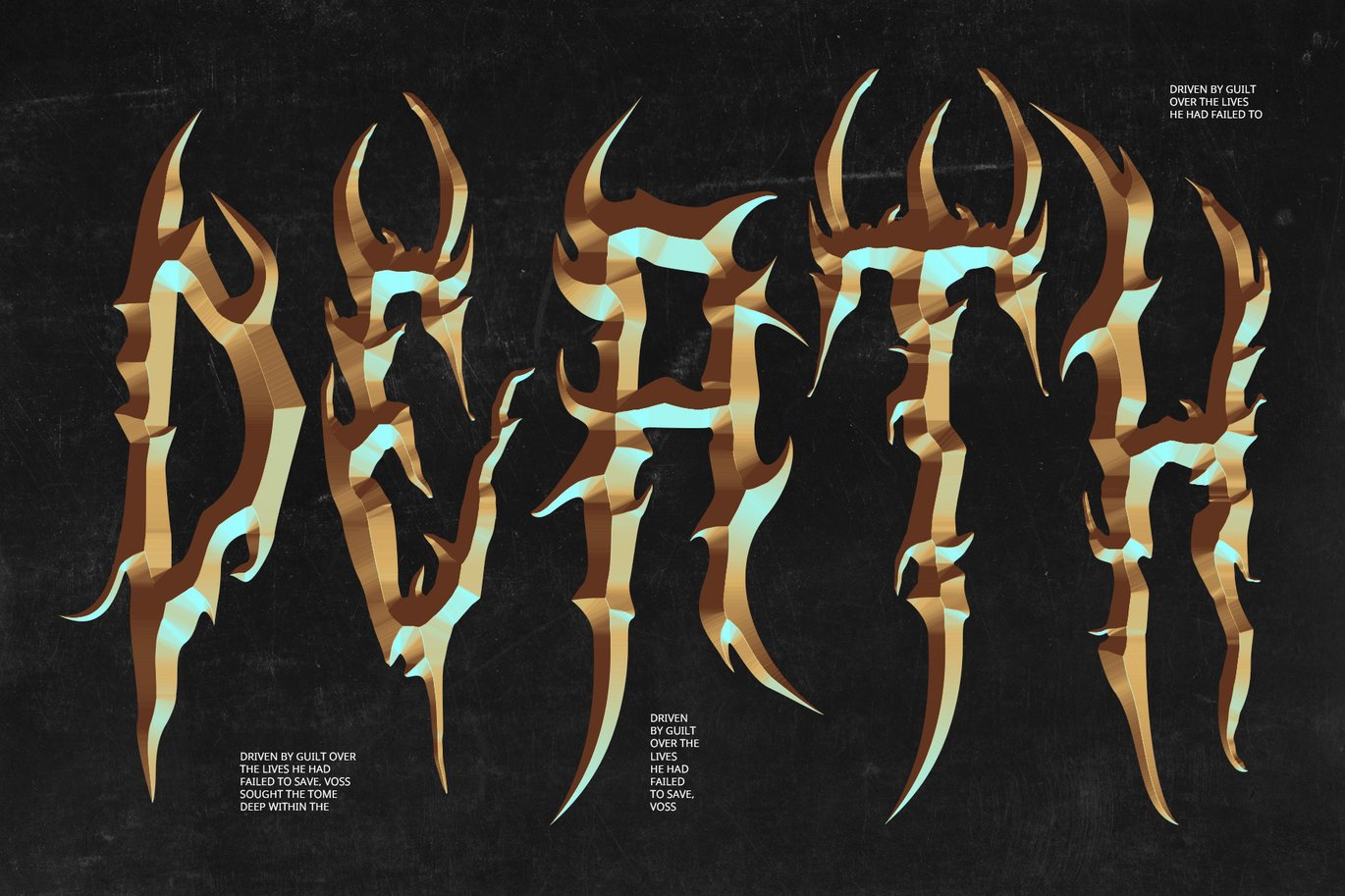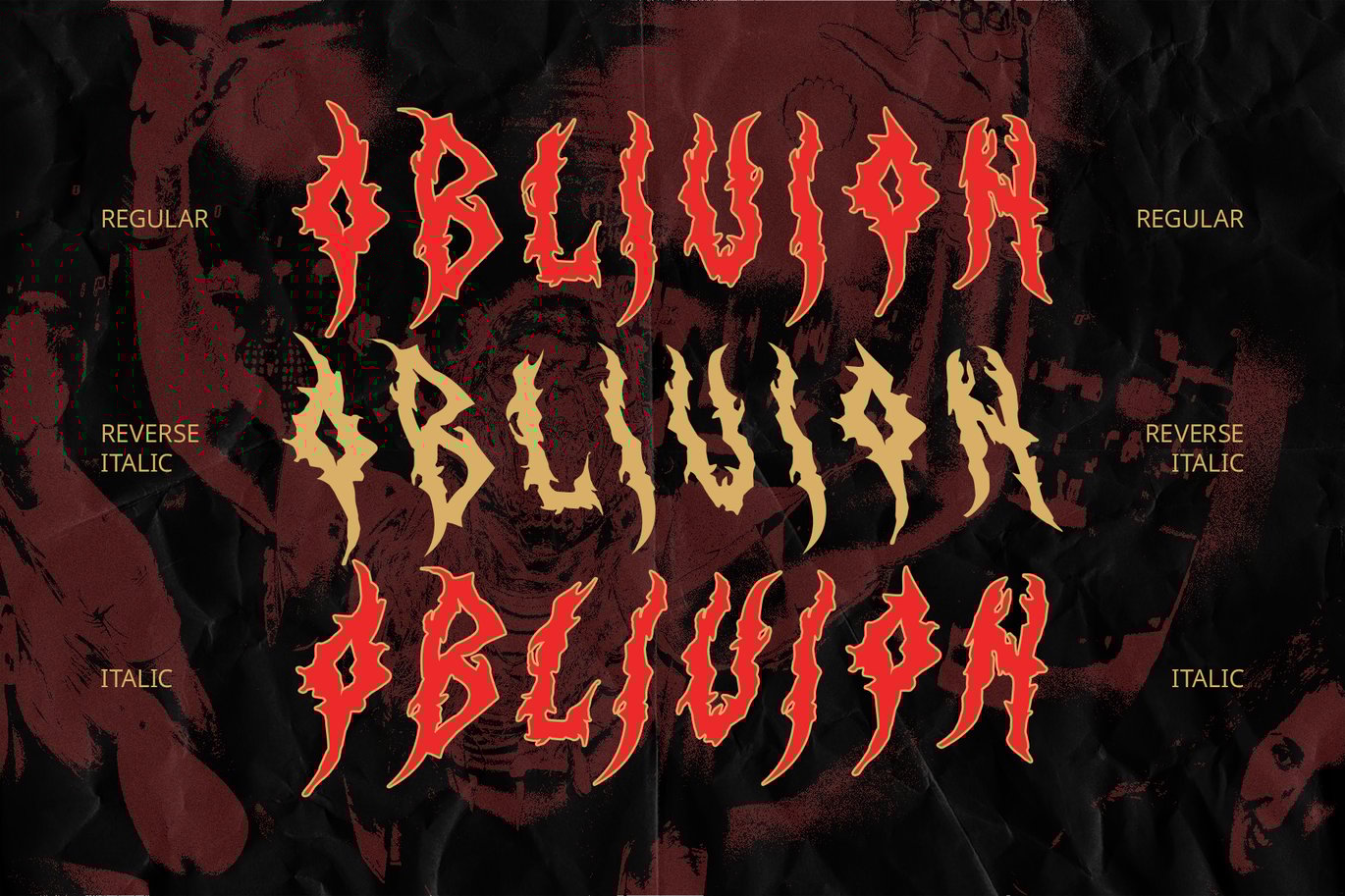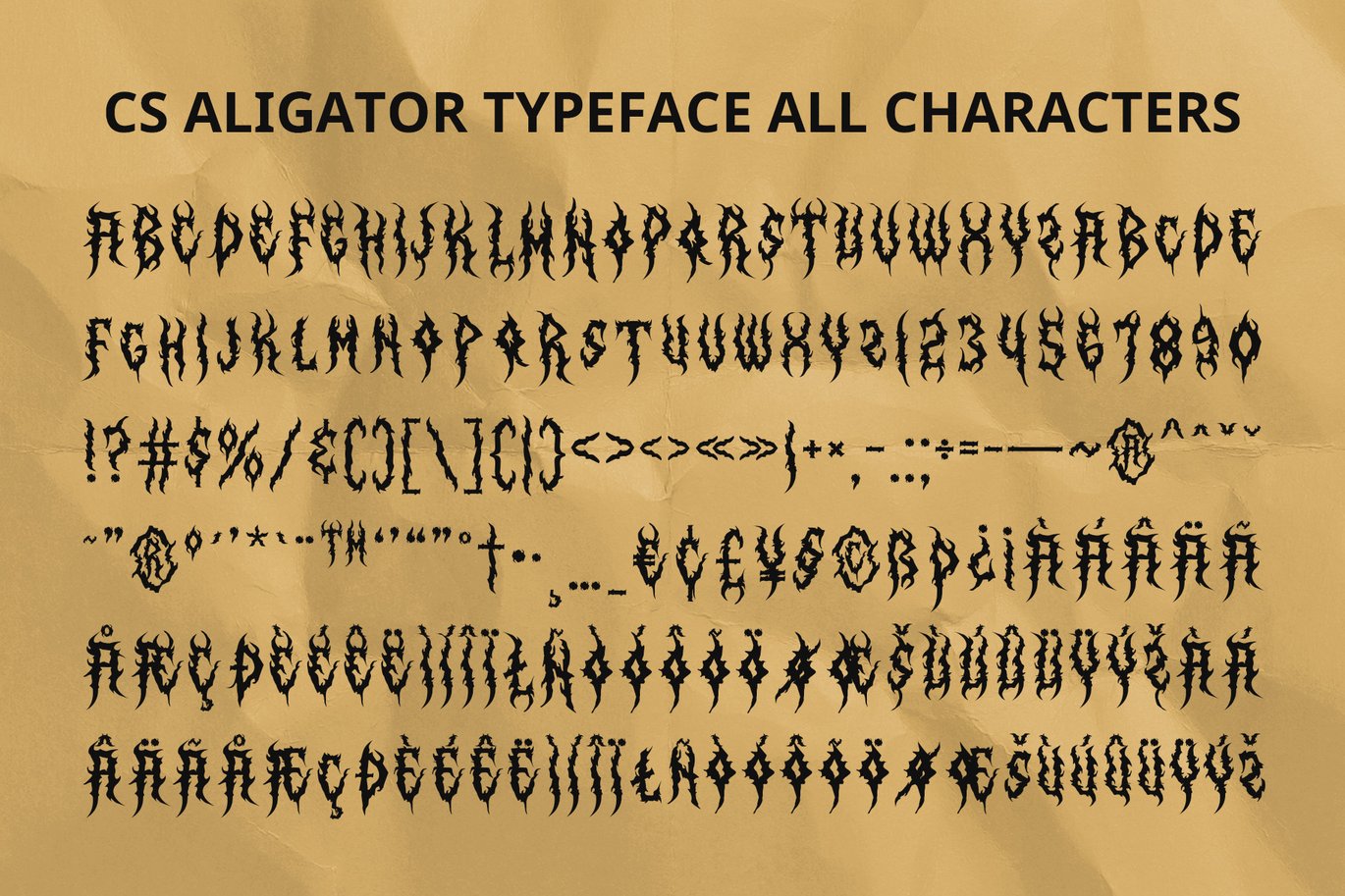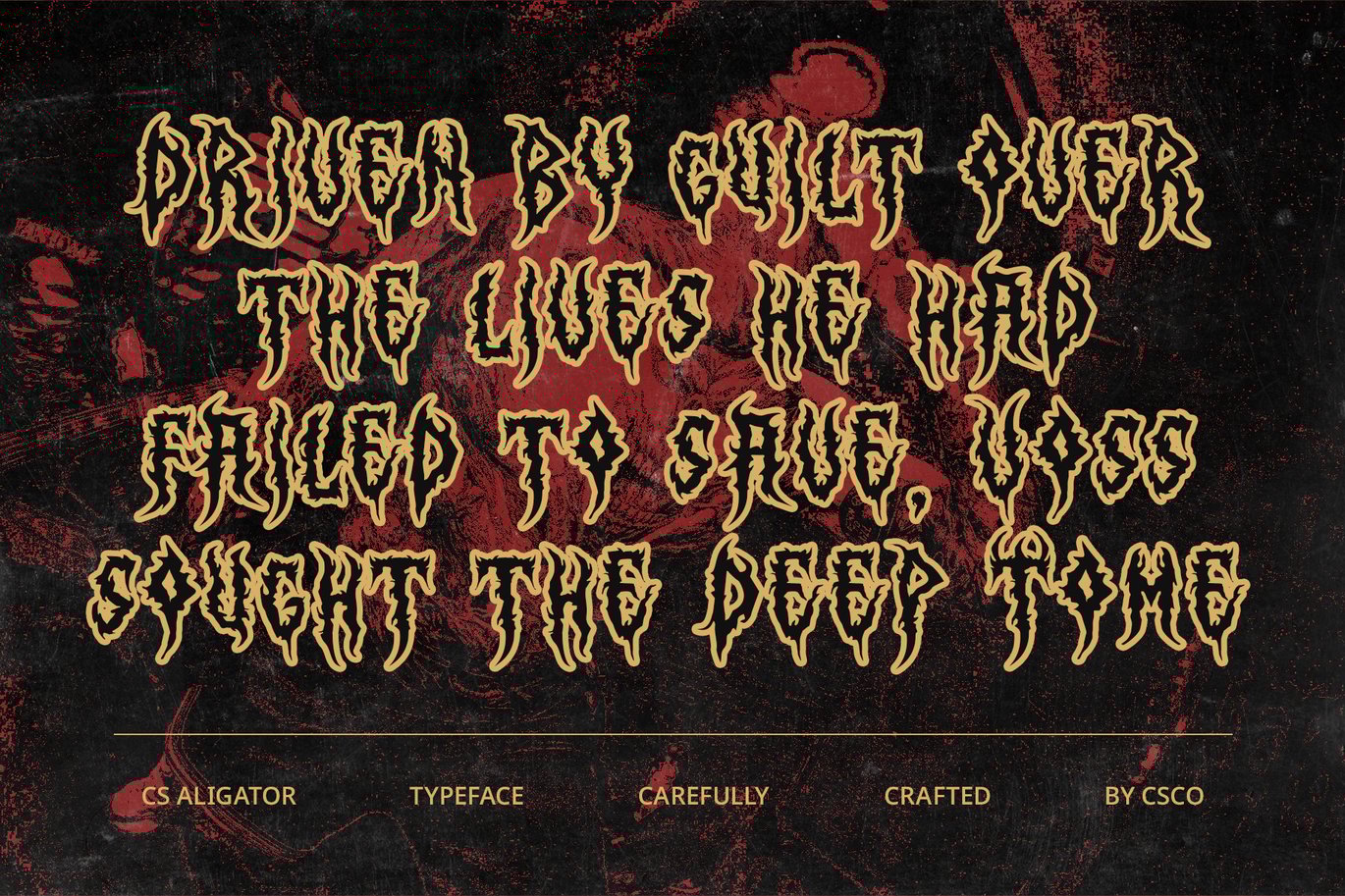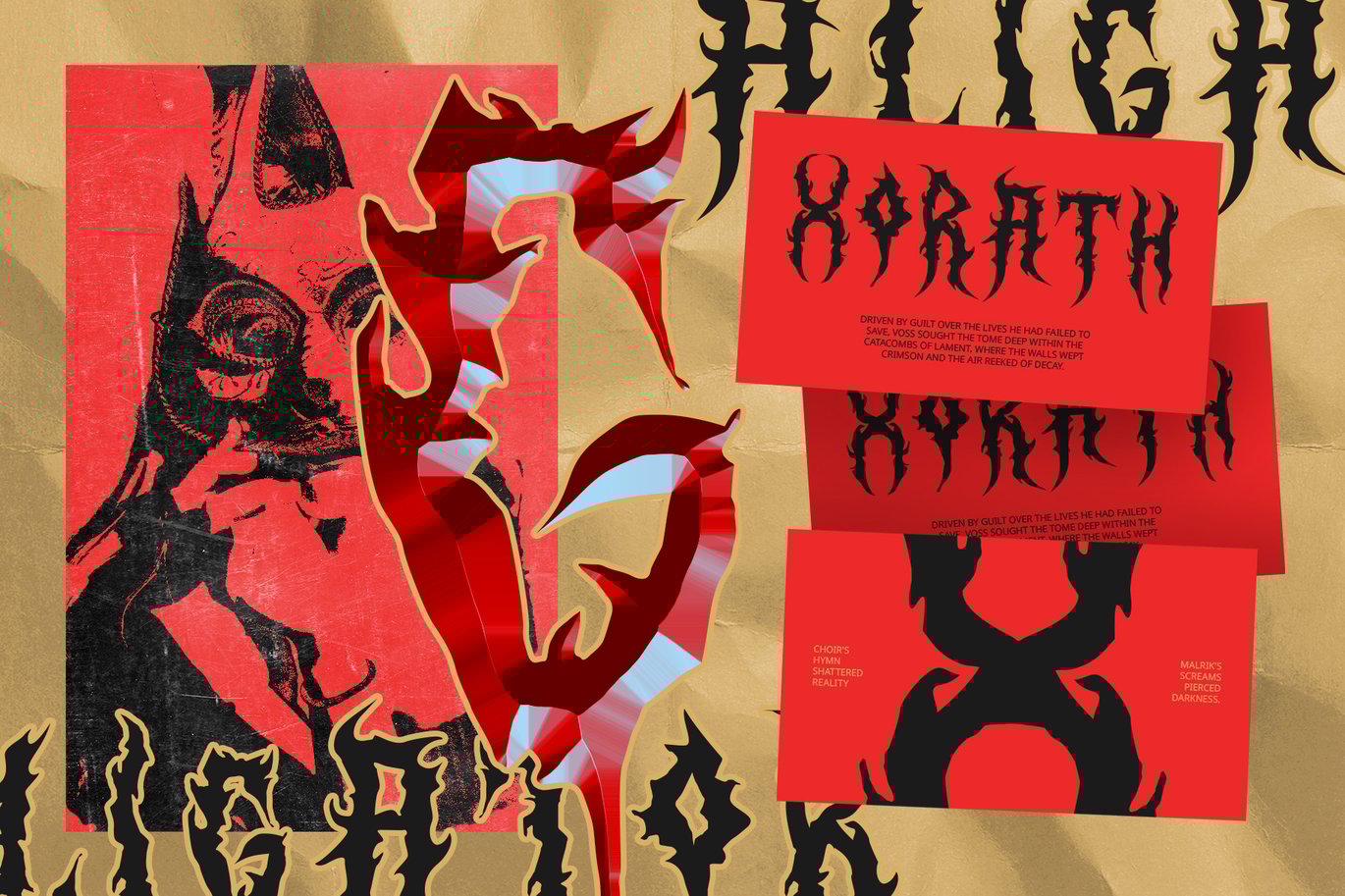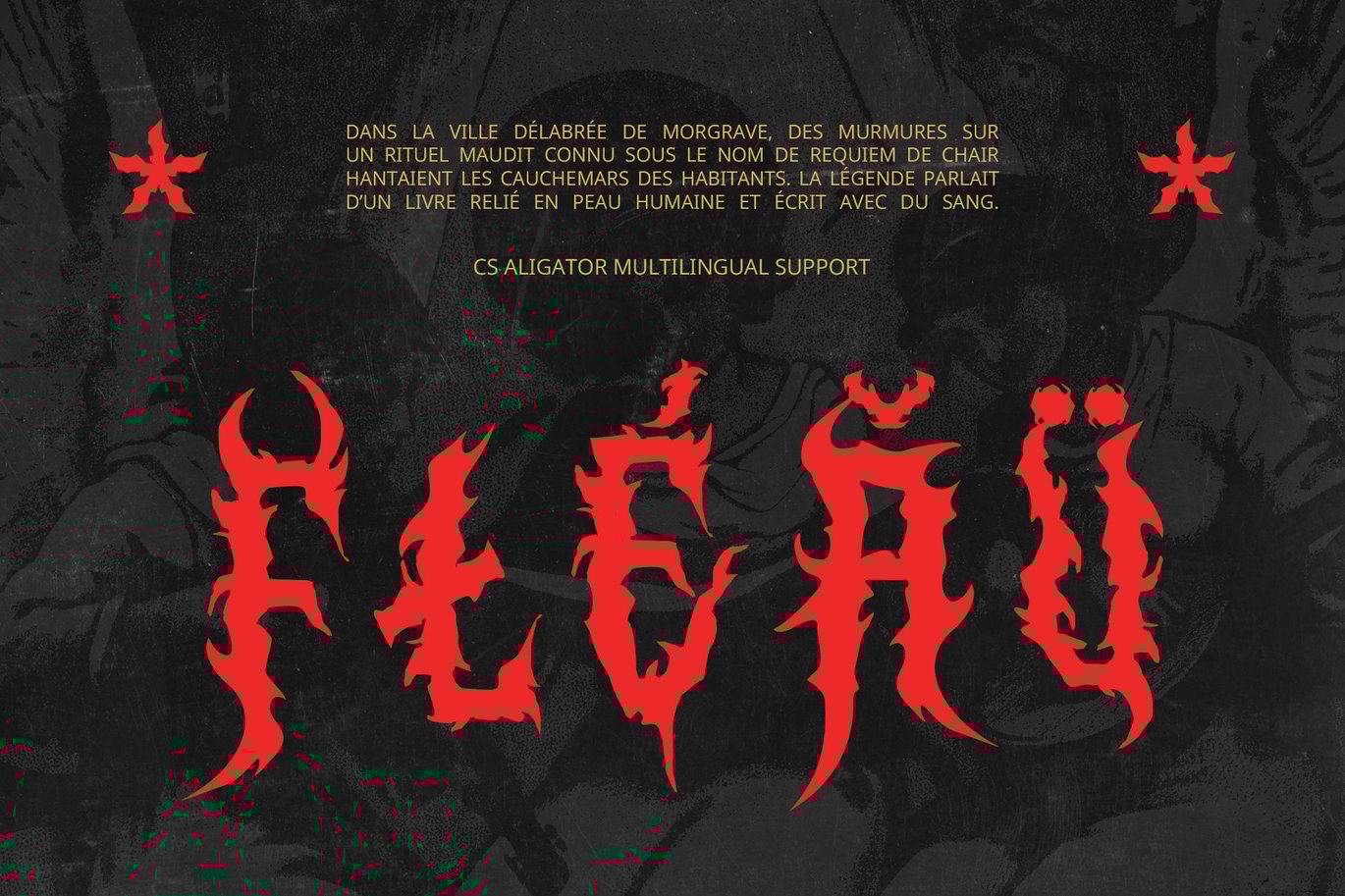
Aligator – Black Metal Font
CS Aligator – Black Metal Font: Dark, Intense, and Rebellious
Black Metal Display Font with Sharp, Aggressive Shapes
CS Aligator is a black metal display font designed to evoke a dark, intense, and rebellious atmosphere through its sharp and aggressive shapes. The letterforms feature jagged edges, pointed tips, and heavy distortion that create a chaotic and menacing aesthetic. This font embodies the spirit of the black metal genre, with every character reflecting the raw, untamed energy associated with this style of music.
Intricate Ornamentation for Added Intensity
Rich in detail, CS Aligator includes intricate ornamentation and decorative elements that enhance its dark and mysterious appeal. The complex flourishes and aggressive design details create a font that feels alive with energy and danger, making it stand out in any project. The highly detailed nature of this font allows it to carry a strong visual identity, perfect for conveying a sense of rebelliousness, power, and nonconformity.
Perfect for Black Metal Branding and Gothic-Themed Projects
CS Aligator excels in branding or artwork for the black metal music genre, offering a unique and authentic style for album covers, concert posters, merchandise, and promotional materials. Its edgy, raw appearance resonates deeply with the gothic aesthetic, making it ideal for projects related to dark art, alternative culture, and underground movements.